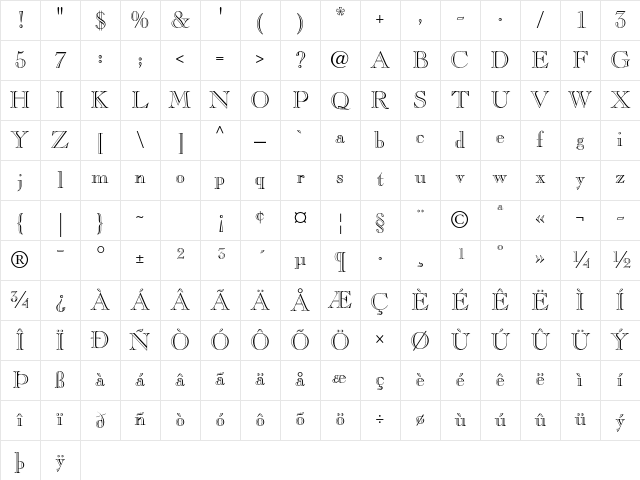
Caslon Open Face LT Std Regular
Designer: BB&S Staff
Design Context for Caslon Open Face LT Std
Caslon Open Face LT Std is a composed and adaptable typeface that performs quietly and consistently across a wide range of design contexts. Its slender proportions lend an understated elegance to any composition.